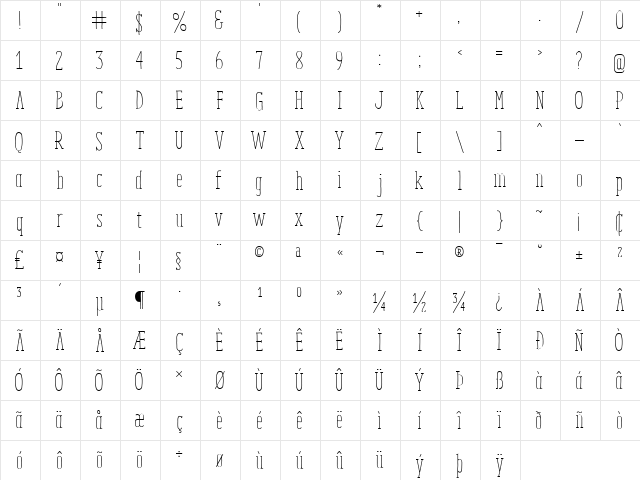
Enyo Slab Light
Design Context for Enyo Slab Typeface
Enyo Slab combines the readability of serif typography with the visual weight of a slab construction, resulting in a typeface that feels both authoritative and approachable. The delicate stroke weight brings airiness and refinement to layouts.
Works well in editorial design, news publishing, impactful branding, and poster typography.
Pro Tip: Try Enyo Slab set tight in headlines for a classic editorial feel. Its slab serifs create strong horizontal rhythm that anchors a page layout.